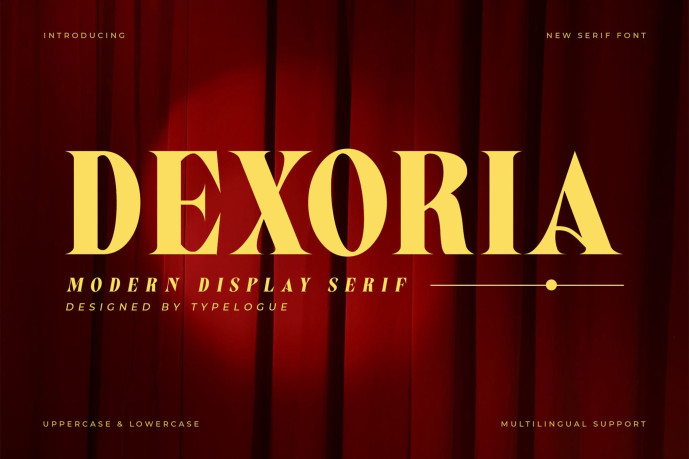
Dexoria Font
Designer: typelogue
Dexoria Font is a striking serif display typeface that combines classical elegance with sharp, modern details. Its bold contrast between thick and thin strokes makes it perfect for luxury branding, magazine titles, high-end packaging, and cinematic posters.
The refined serifs and distinctive shapes give every word a powerful, timeless character. Whether for fashion campaigns, book covers, or identity design, Dexoria adds a touch of sophistication and authority to any creative project.